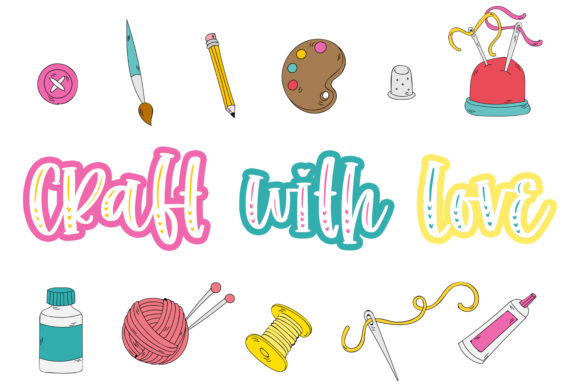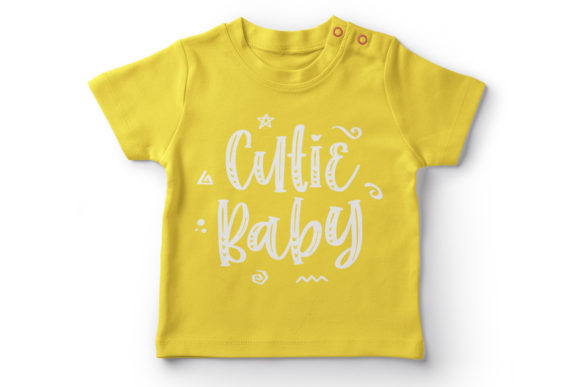
Choco Matcha Font
db-ku.com - Script & Handwritten -- Choco Matcha is a sweet and quirky handwritten font. Fall in love with its incredibly versatile style and use it to create gorgeous wedding invitations, beautiful stationary art, eye-catching social media posts, and much more!